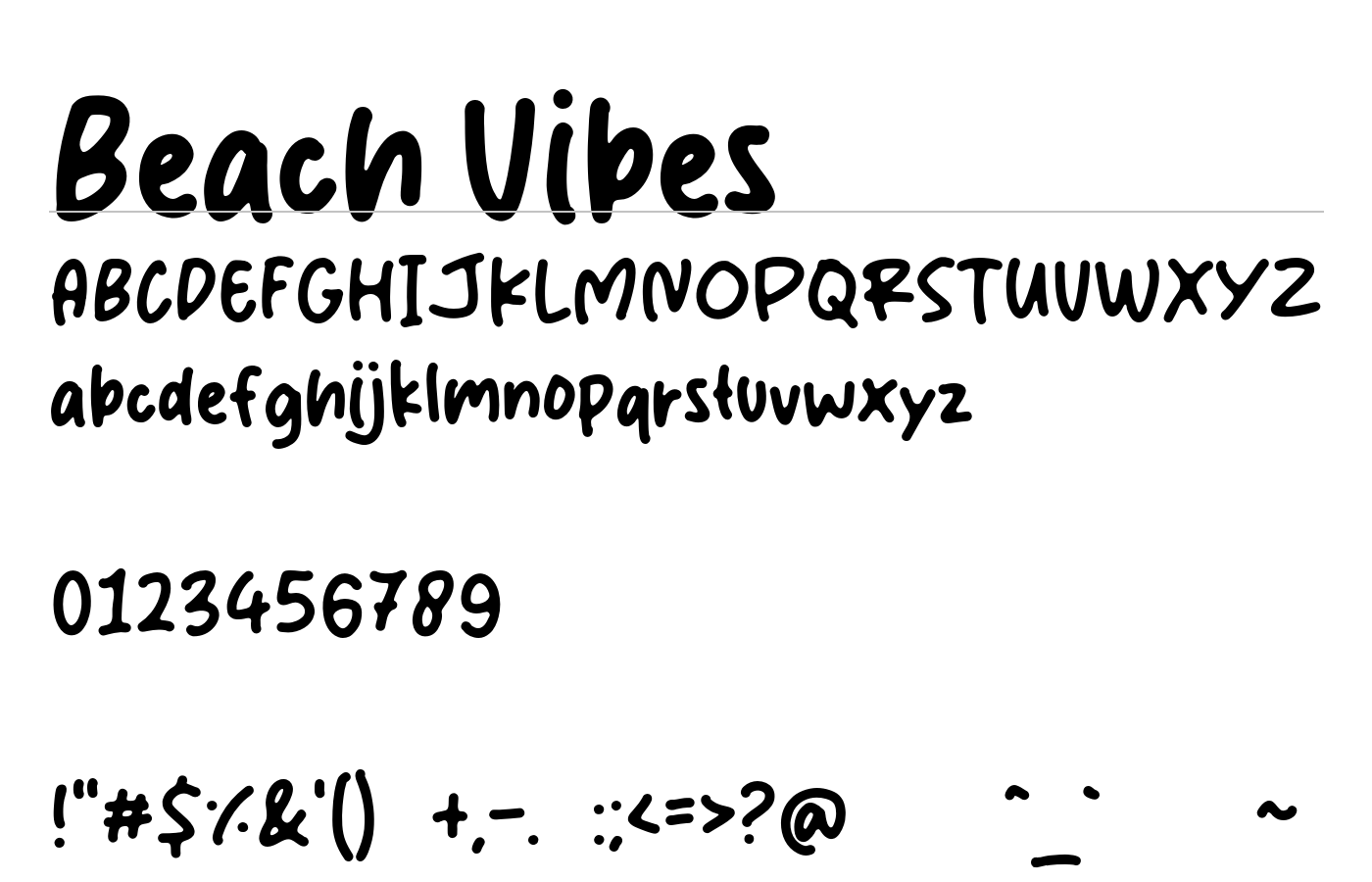
Beach Vibes Font is a casual, friendly handwritten sans serif with a bold and rounded style that feels warm and inviting. Its playful letterforms and slightly irregular shapes evoke a relaxed, beachy atmosphere, making it perfect for fun, informal designs like lifestyle branding, social media graphics, and summer event posters. This font works best in headlines and display settings where its personality can shine and create an approachable, laid-back mood.
Beach Vibes Font
About Beach Vibes Font